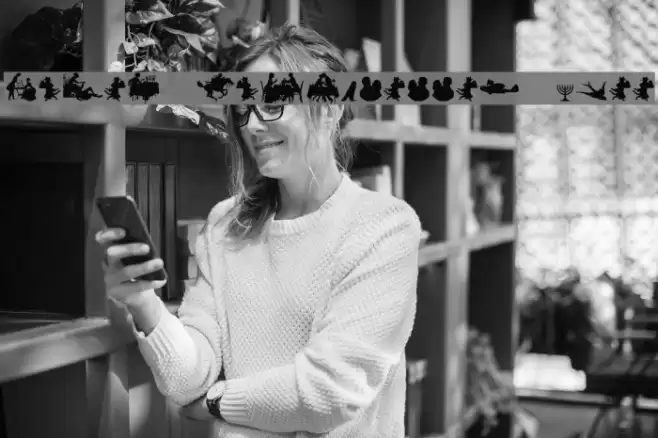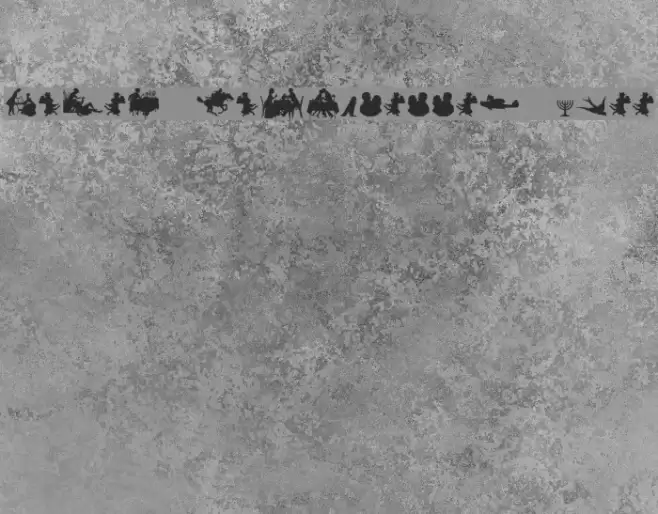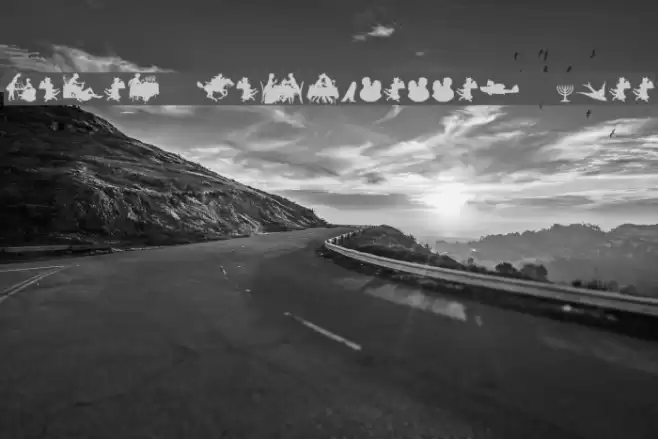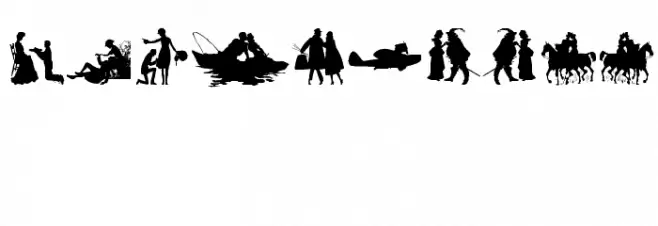
Mixed Silhouettes Free Font
Mixed Silhouettes Free Description
A decorative display font composed of intricate black silhouettes depicting various scenes with people, animals, and objects, each character representing a unique vignette rather than traditional letterforms. The silhouettes are detailed and evoke a vintage, storybook feel.
Decorative silhouette font with vintage scene illustrations from Uncategorized fonts.
- Proposed Projects: Book covers, event invitations, posters, theatrical programs, themed branding, art projects.
- Overall Style: Decorative, Vintage, Illustrative
- Use Case: Logos, Headlines, Posters, Artistic projects